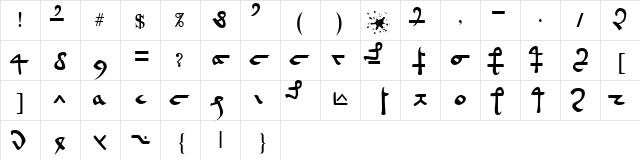
Voynich Frogguy Hand A Normal
Design Context for Voynich Frogguy Hand A Typeface
Voynich Frogguy Hand A brings a calligraphic fluidity to the page — its connecting strokes and expressive curves give it an unmistakably human quality.
Font Pairing: Combine Voynich Frogguy Hand A with a simple geometric sans for maximum contrast — the tension between flowing curves and clean structure is a classic typographic pairing.
Pro Tip: Pair Voynich Frogguy Hand A with a clean sans-serif for supporting text. The contrast between fluid script and geometric structure creates an elegant typographic hierarchy.